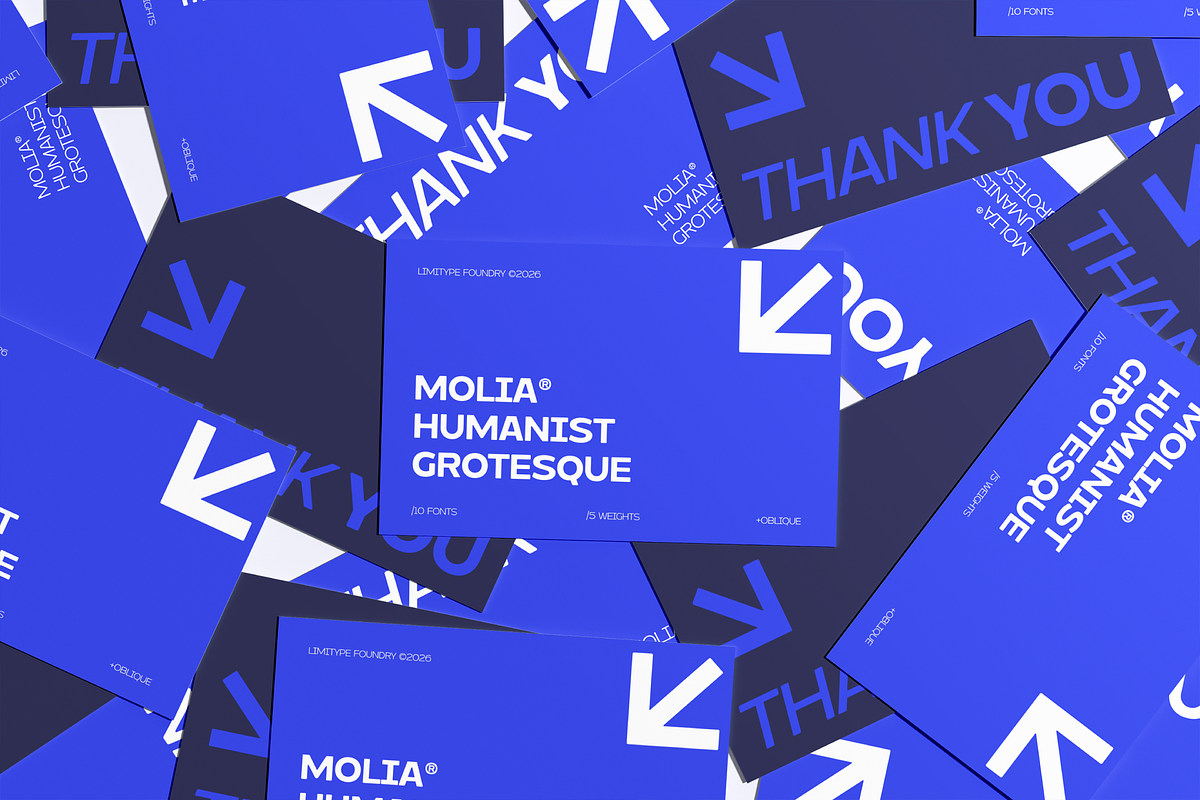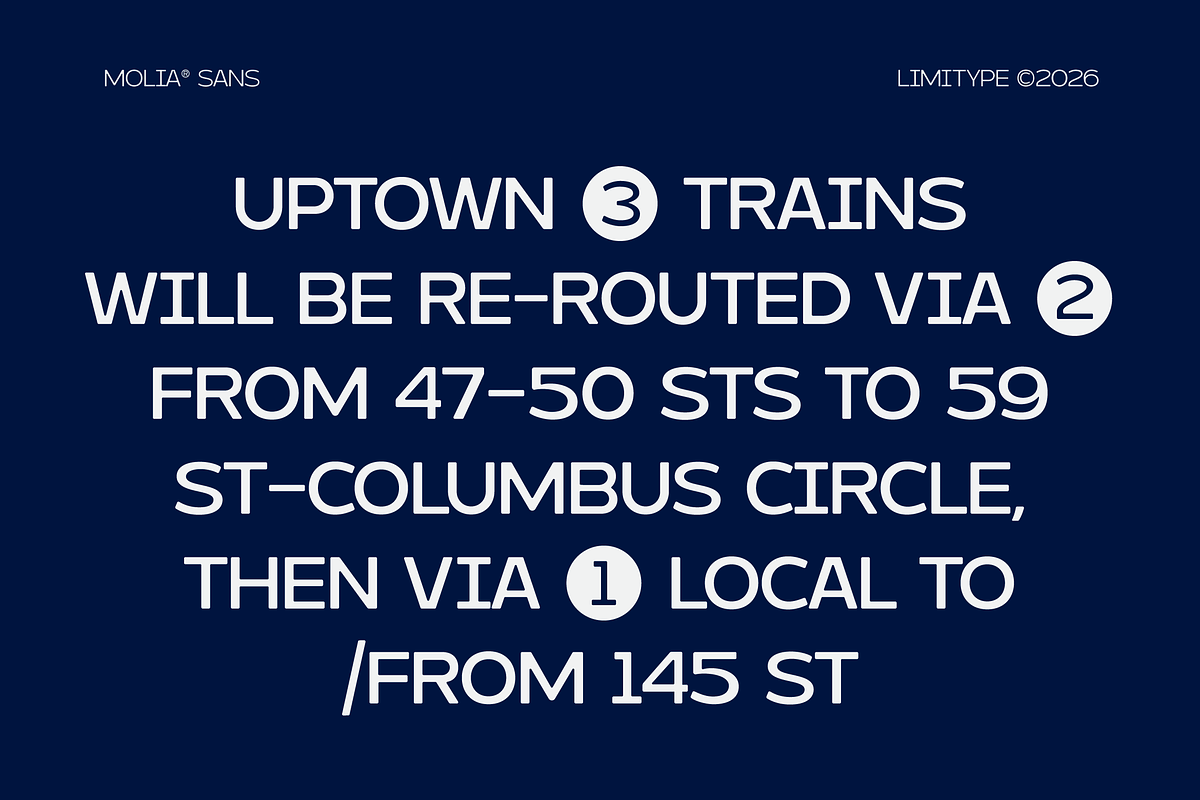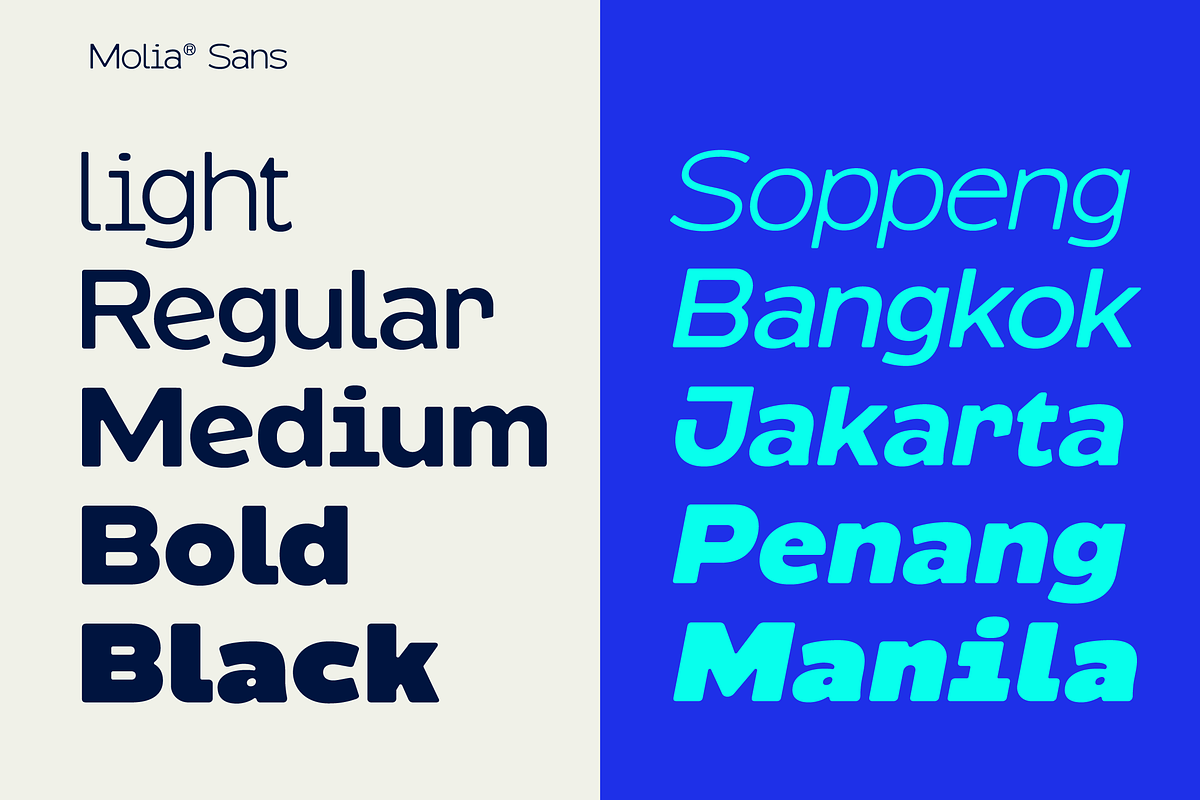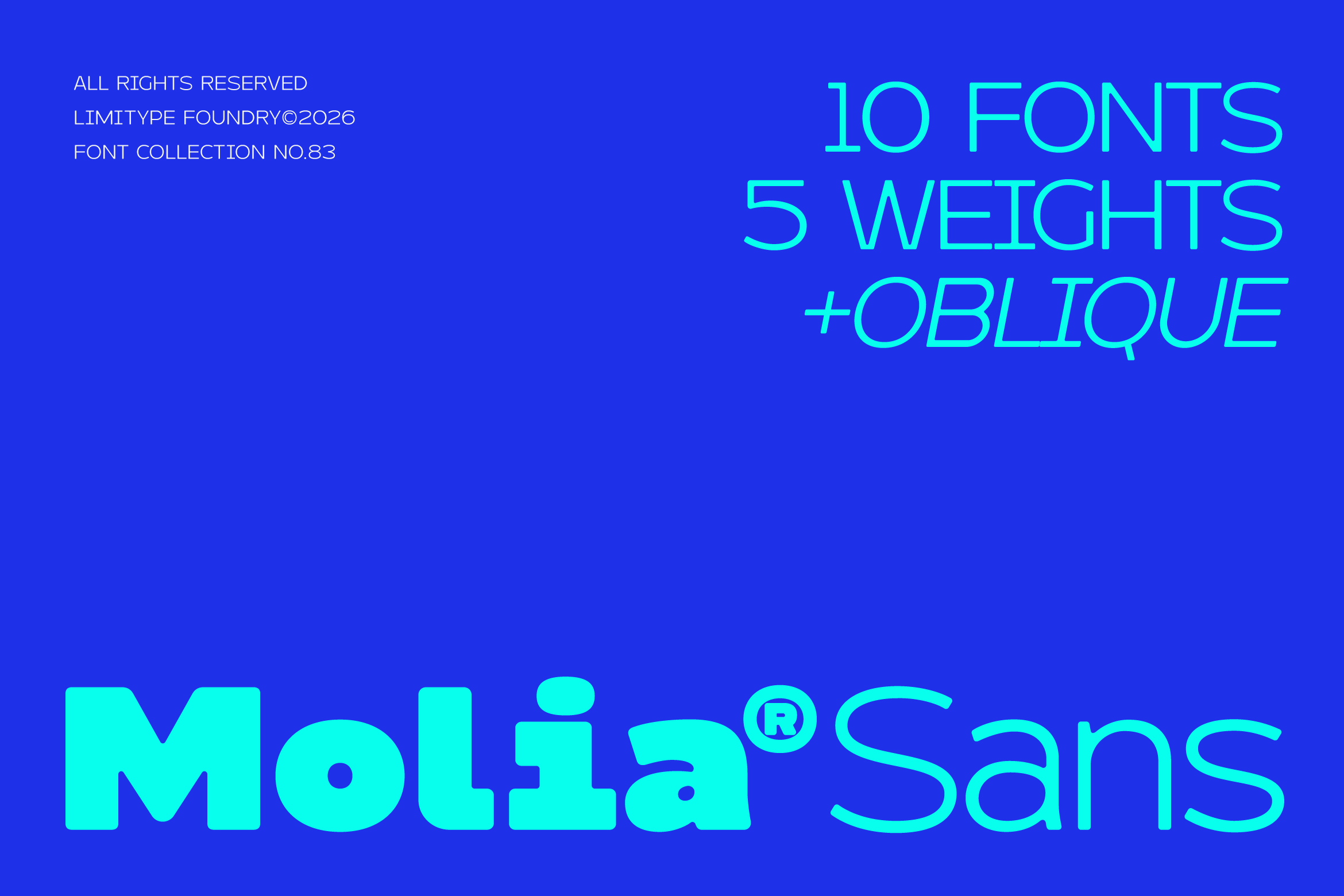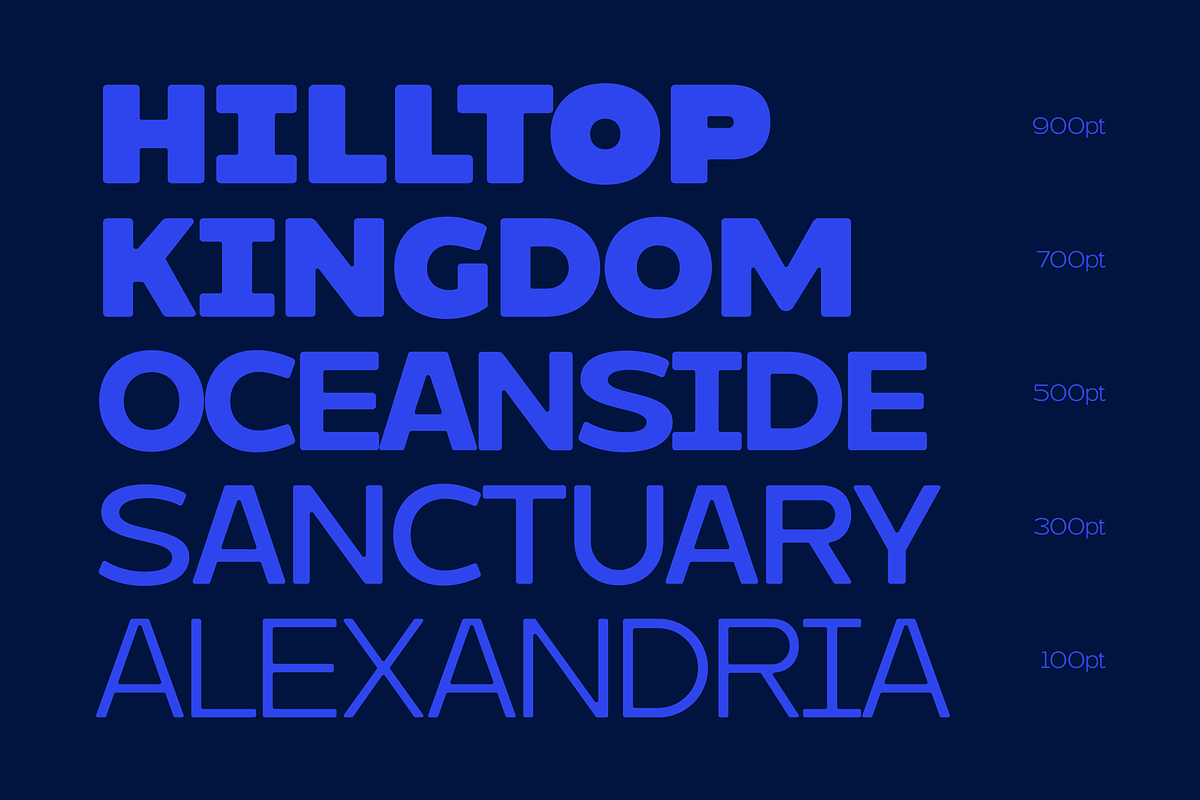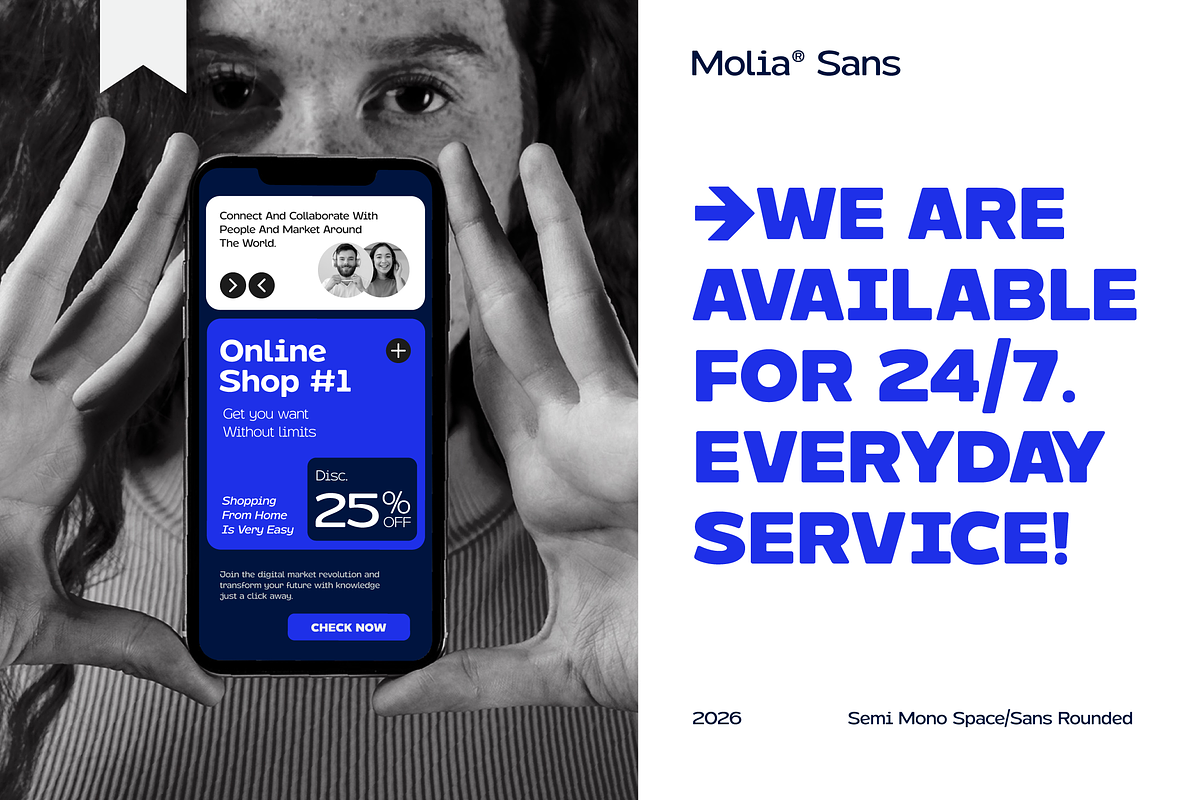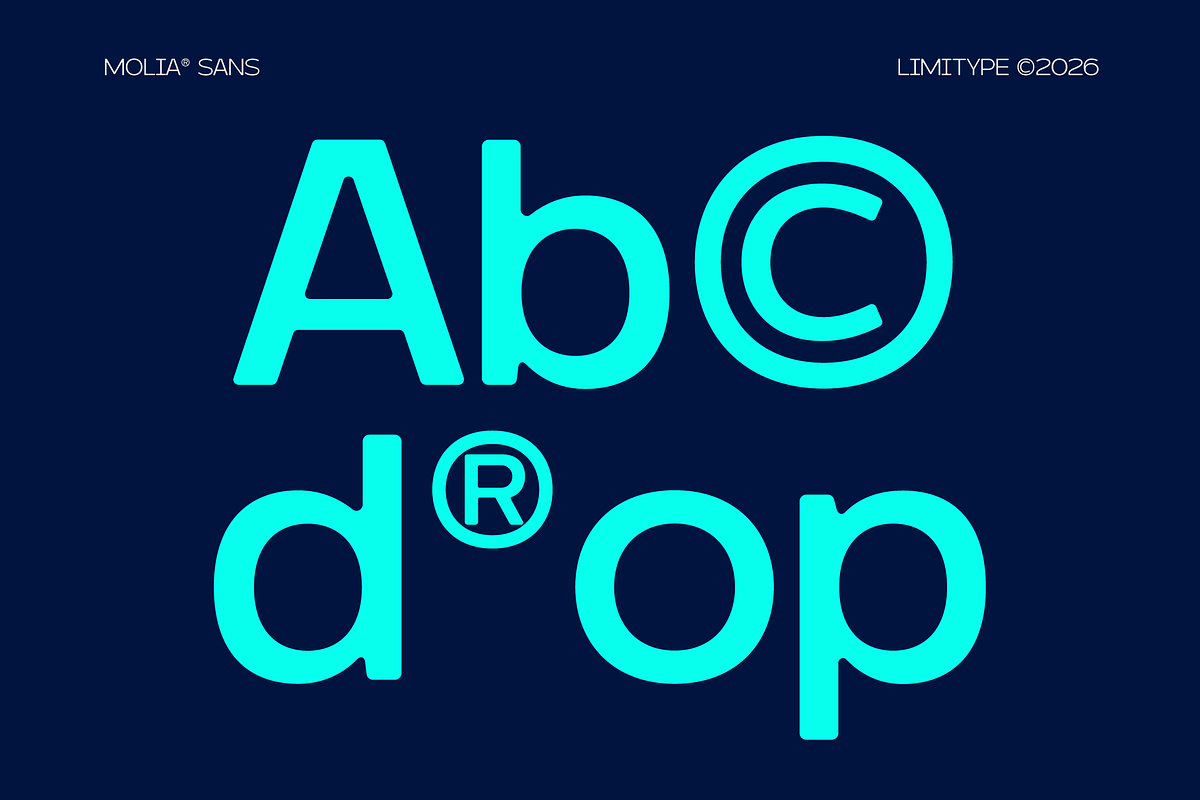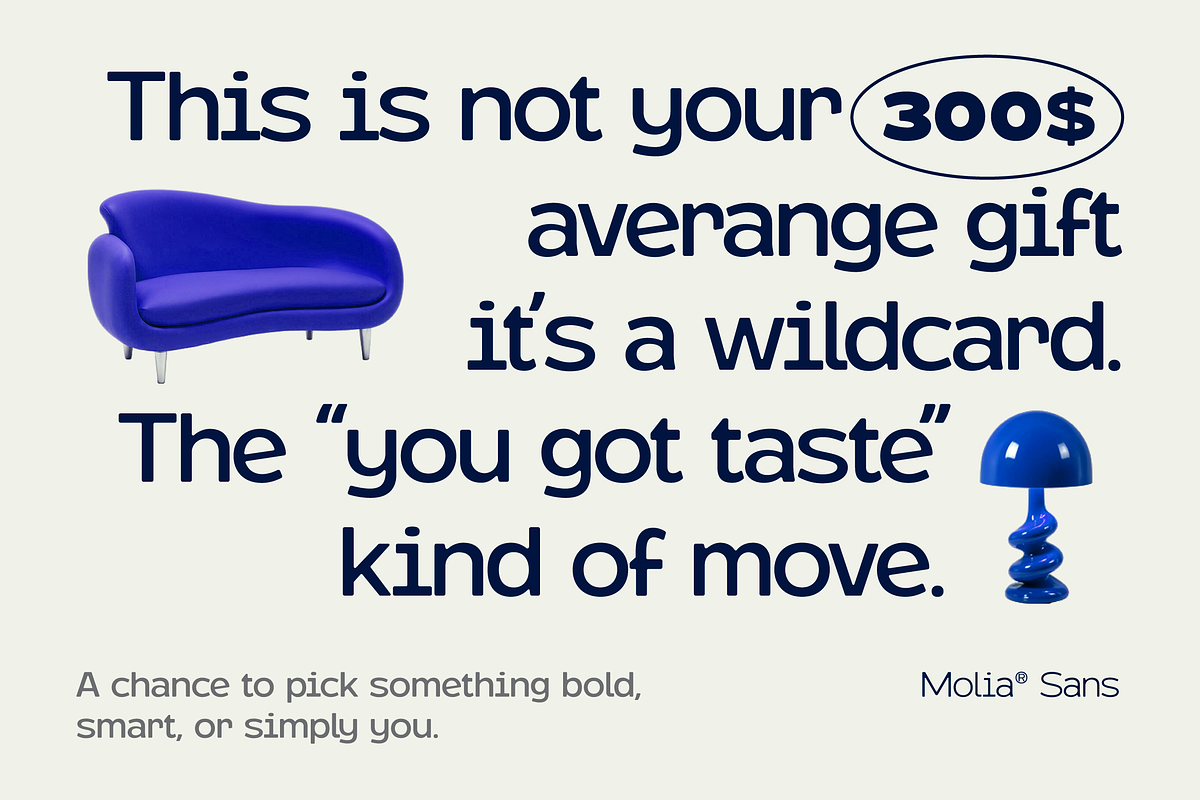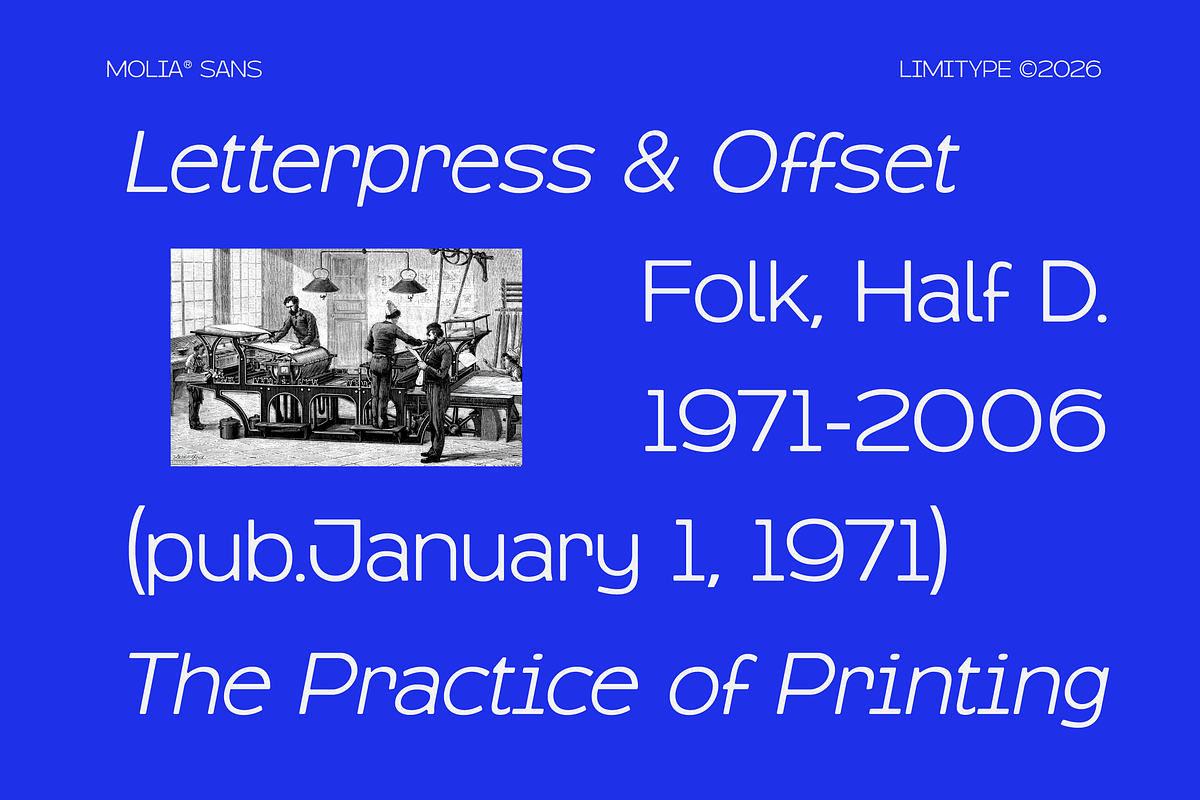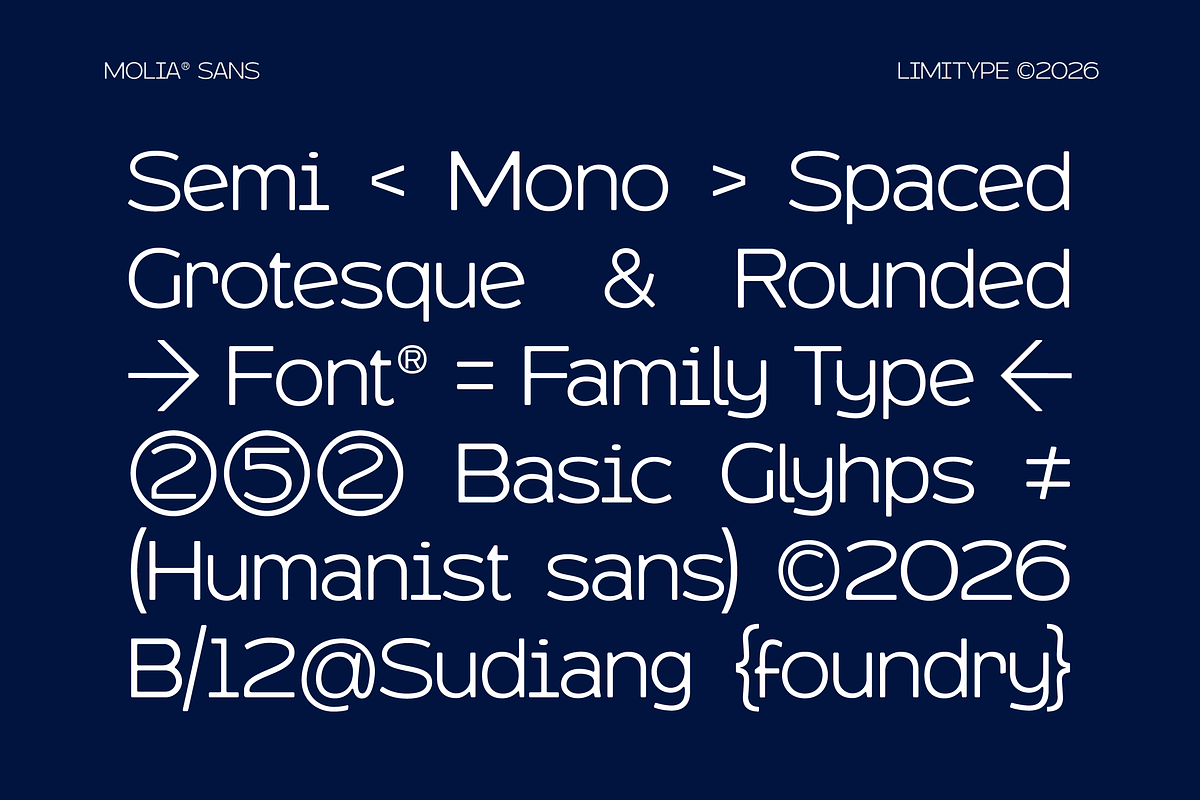
Molia - Sans Serif Font
Molia is a modern sans serif typeface that blends the clarity of a semi monospaced structure with soft rounded grotesque forms, creating a balance between technical precision and friendly aesthetics. Its clean, geometric yet approachable shapes make it ideal for branding, digital interfaces, editorial layouts, posters, and logotype design. Designed as a versatile font family, Molia also includes an oblique version to add flexibility and dynamic expression to modern typography.